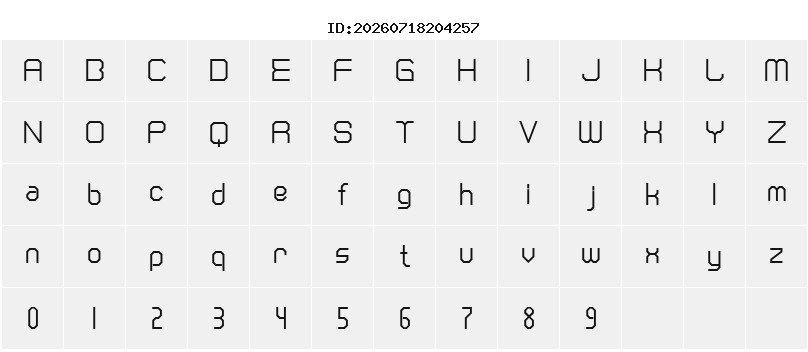
• Font Name: Cranberry Cyr
• Designer: Ray Larabie - lat. / Dubina Nikolay - rus.
About Cranberry Cyr.ttf
Cranberry Cyr.ttf is a modern, elegant sans-serif font designed for ultimate readability and visual harmony. Perfect for branding, headlines, web design, and print materials.